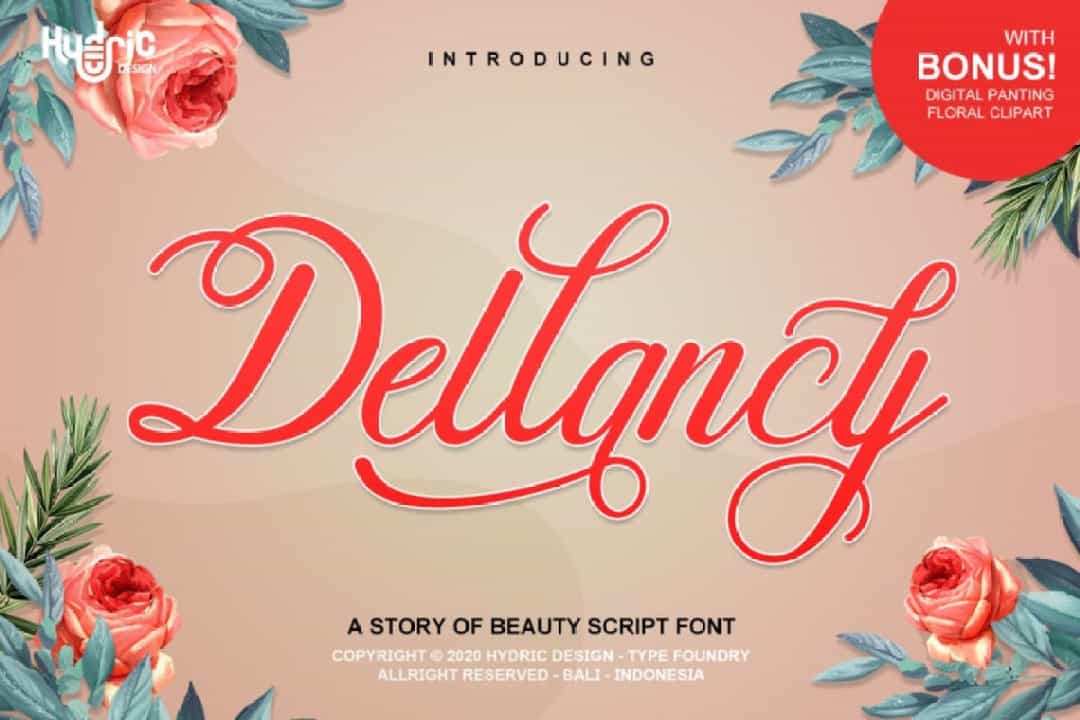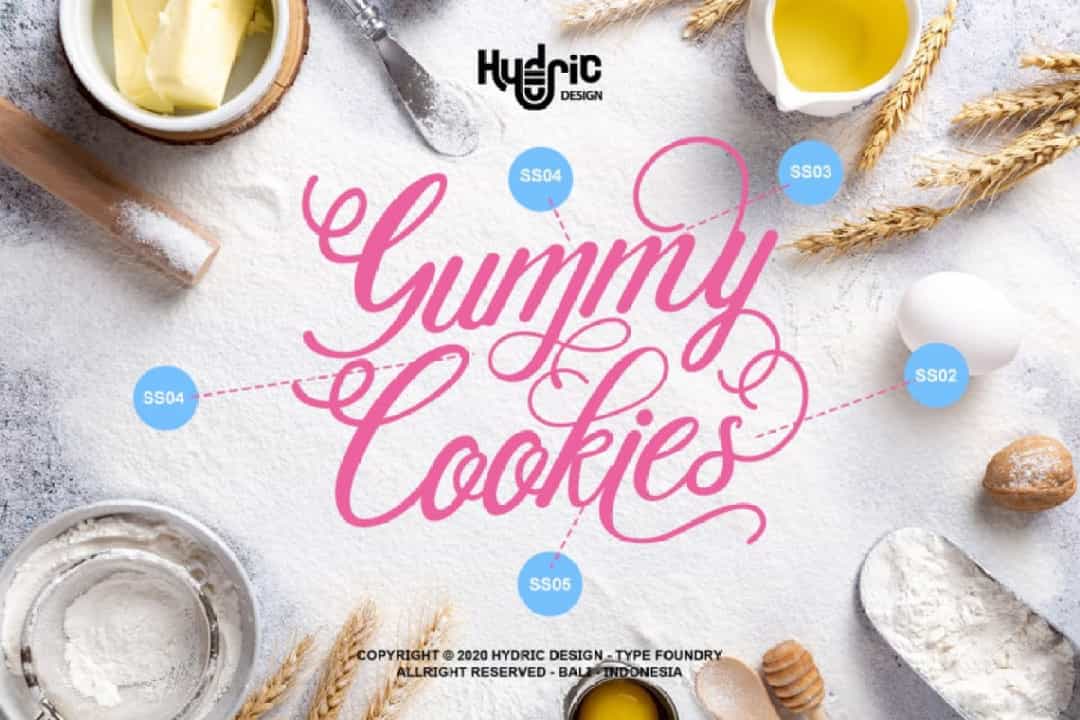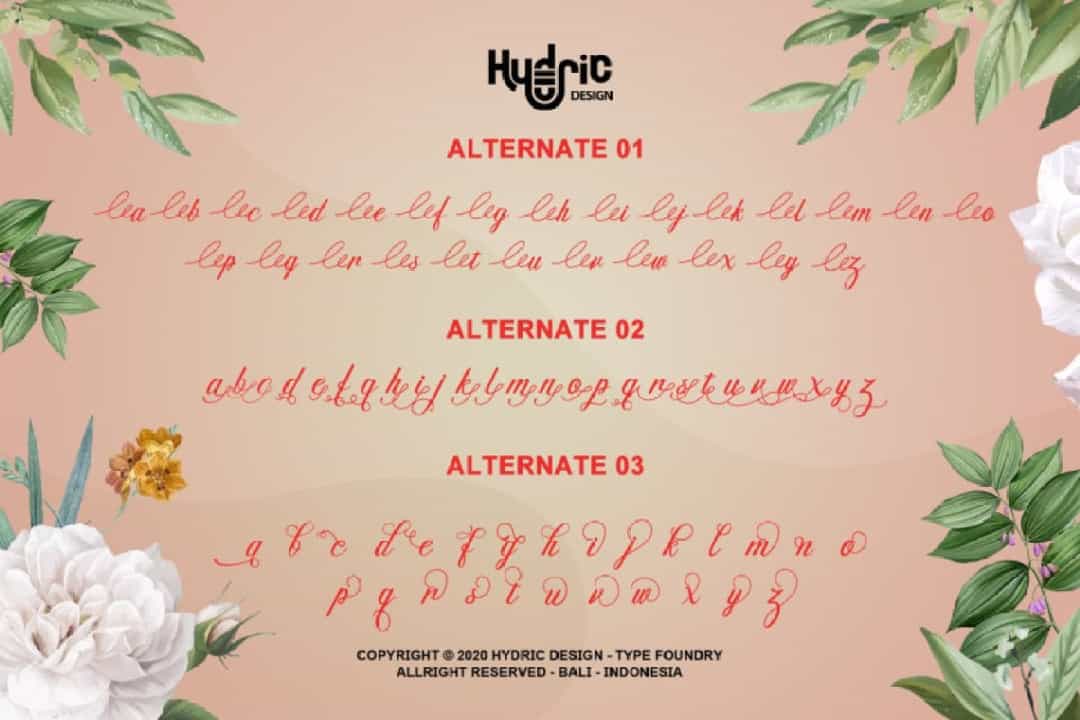
Dellancy is a graceful and simple calligraphy font suitable for any purpose due to its simplicity. As it is PUA encoded you have all the characters, and washes available to you without much of a struggle. Being versatile in the baseline, having a fluidity in the lines, beautiful glyphs and stunning alternates, it gives a sense of calligraphic elegance with a contemporary touch. Feel the magic and bring your creations to the next level with it!